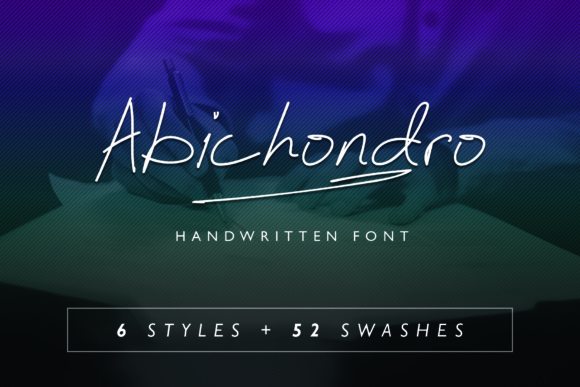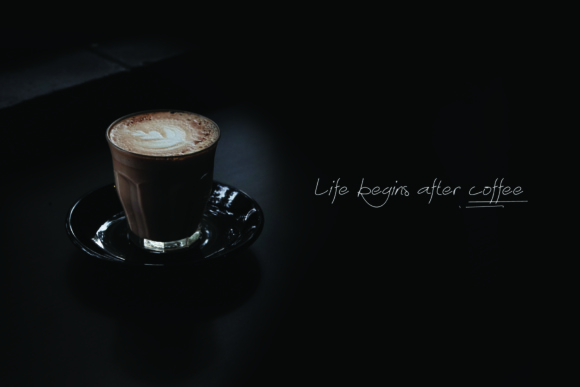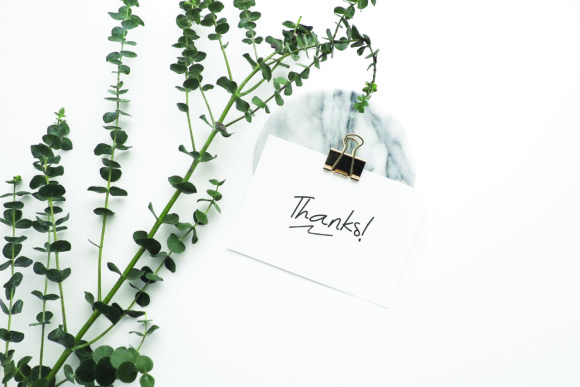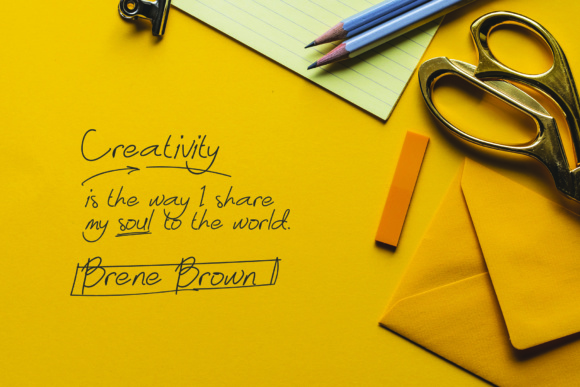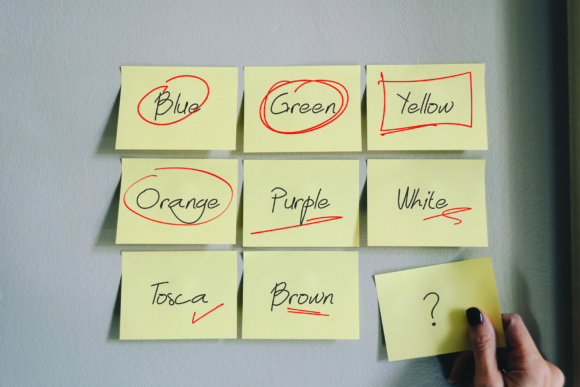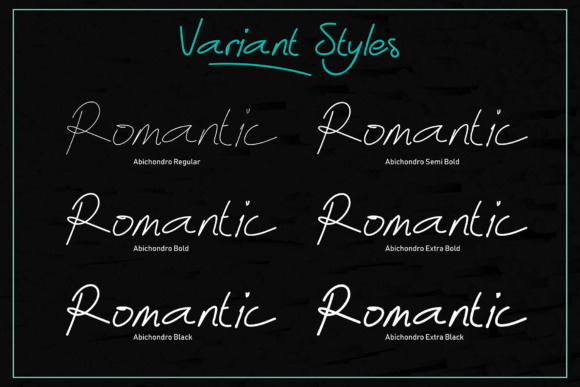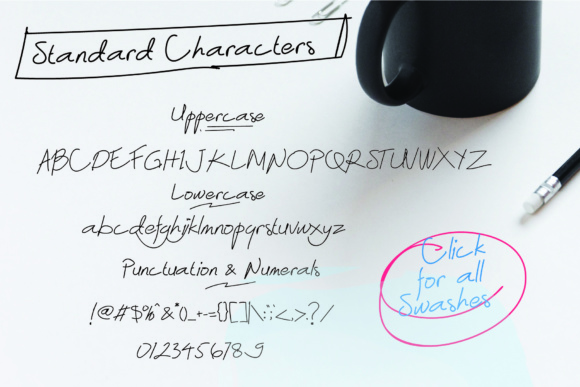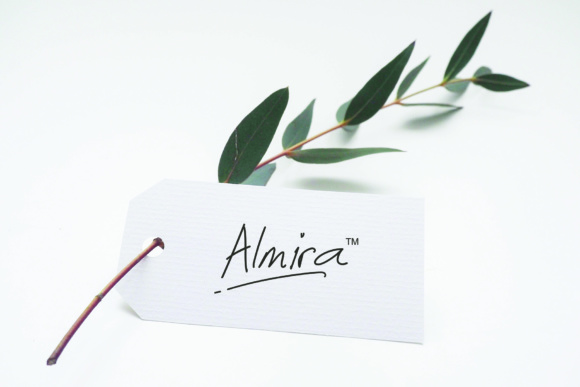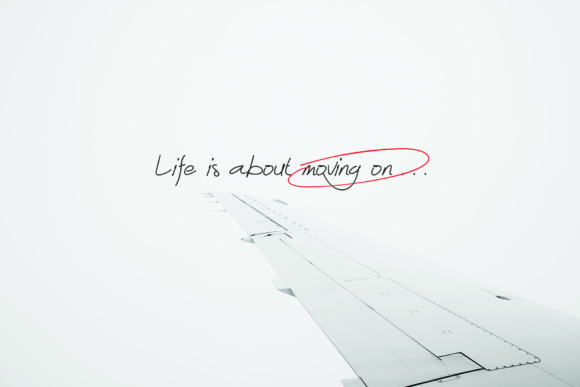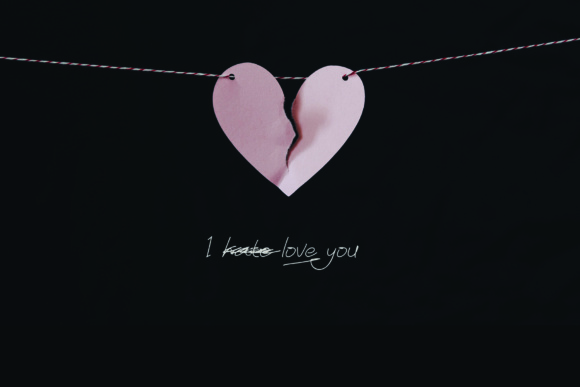
Abichondro Script Font
About Abichondro Script Font
Abichondro Script is a natural signature style font with 6 font style options. It’s many swash options add beauty to this font.
Abichondro Script is suitable for boutique brands, photography, magazines, quotes, business cards, logos, posters and much more.